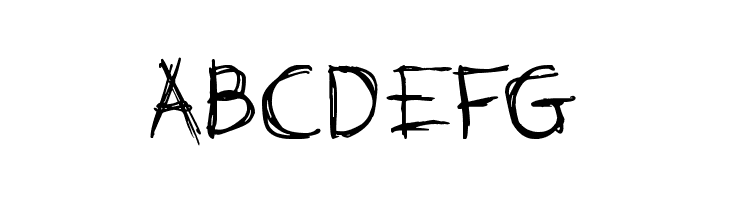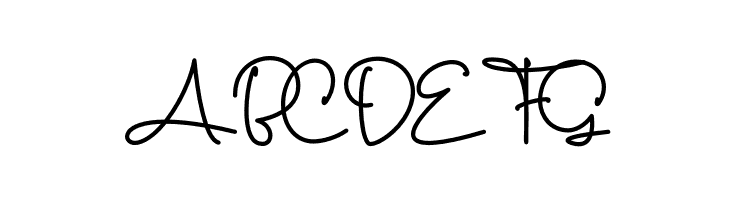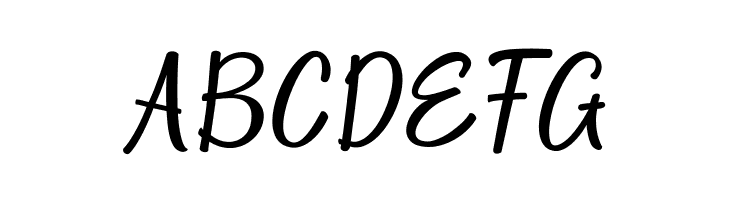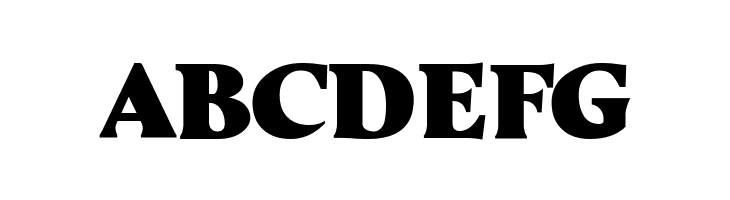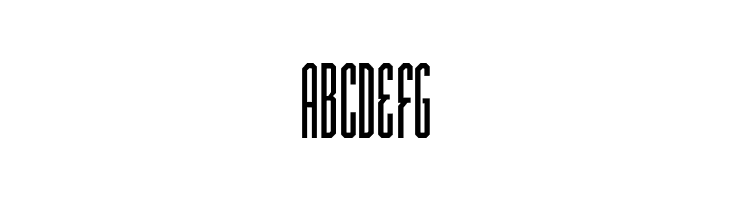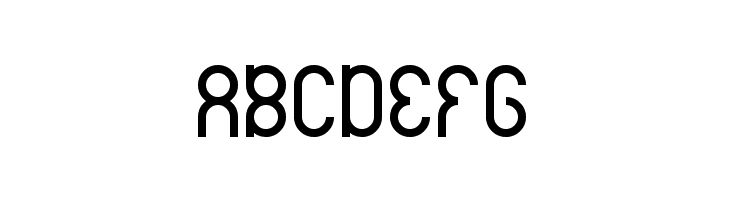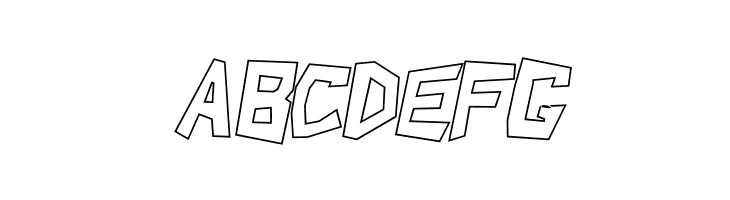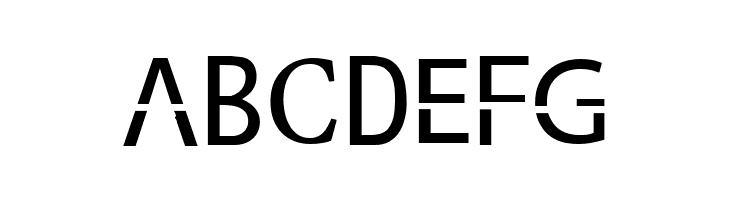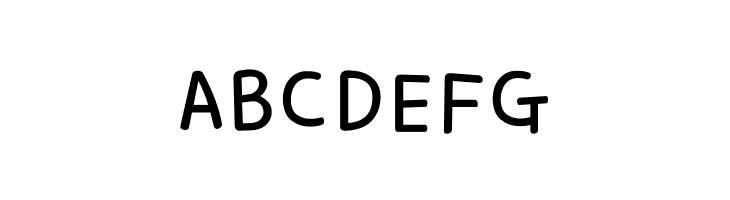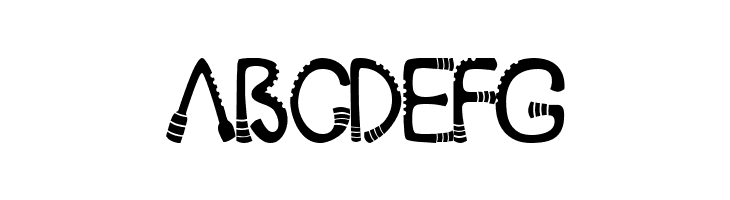
A playful, casual handwritten font with an organic flow and friendly appearance.
A modern, geometric font with a minimalist and structured design.
A playful, handwritten font with fluid strokes and a casual style.
A bold, high-contrast serif font with dramatic, angular serifs.
A bold, italicized font with angular, three-dimensional outlines.
An artistic, flowing script with smooth curves and dynamic strokes.
A classic serif font with elegant and refined letterforms, perfect for formal use.
A decorative font with a cross-stitch pattern, ideal for creative projects.
A sketchy, hand-drawn font with a dynamic and energetic feel.
A modern serif font with clean lines and balanced proportions, ideal for readability.
A modern serif font with clean lines and subtle serifs, offering a balanced and readable design.
A playful, bold, hand-drawn font with thick, rounded strokes and a whimsical style.
A playful, bold font with irregular, angular shapes and a hand-drawn feel.
A playful, cursive font with a dynamic and energetic style.
A geometric, grid-based font with a modern, minimalistic style.
A sophisticated cursive script with elegant loops and flowing connections.
A stylish, handwritten font with elongated, flowing letterforms.